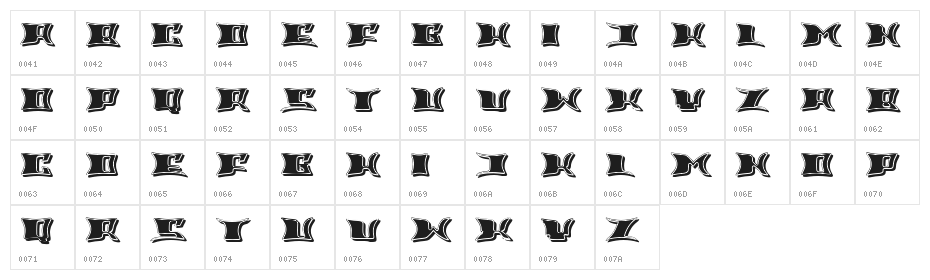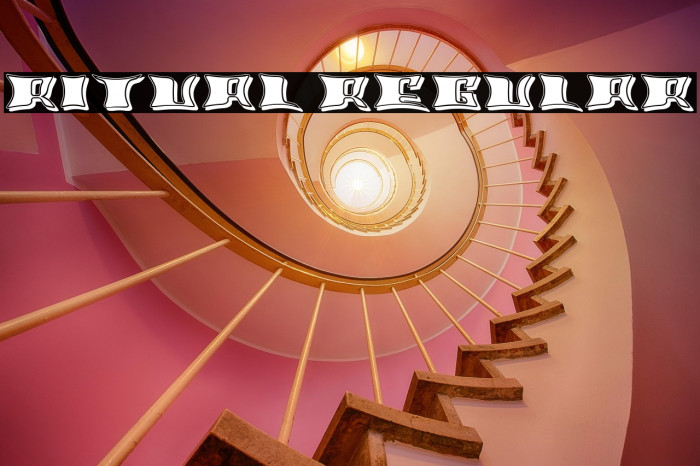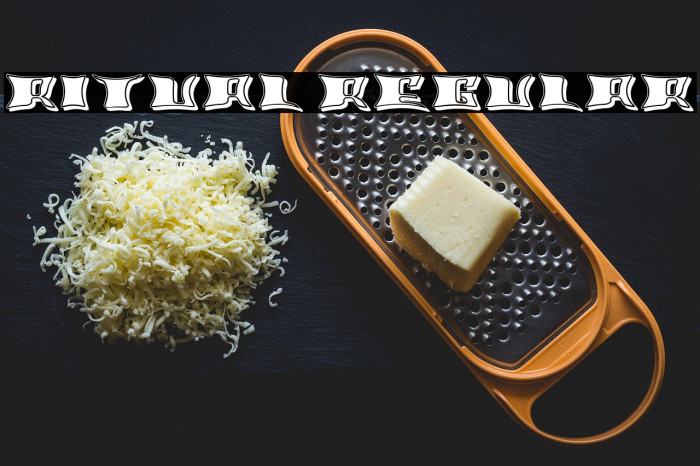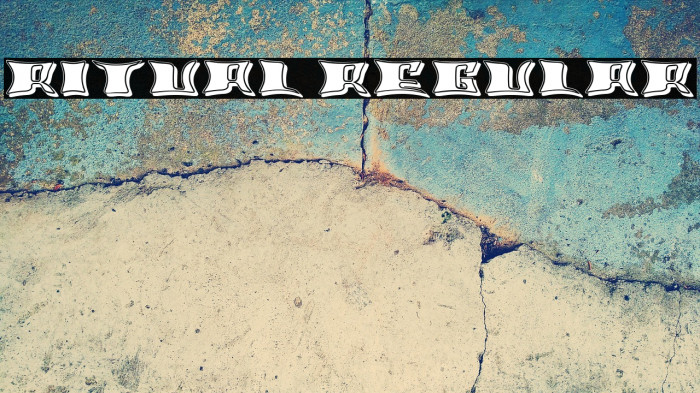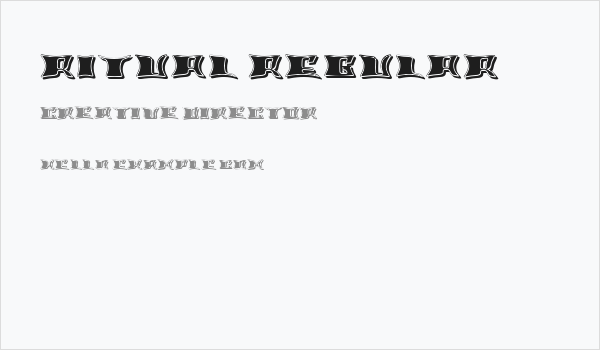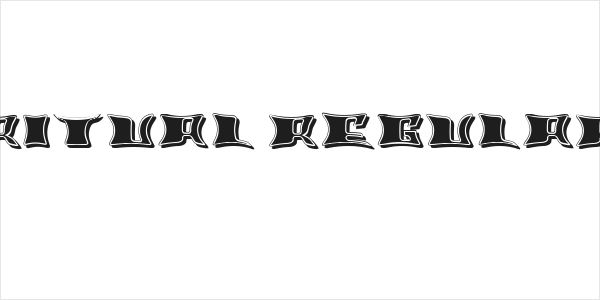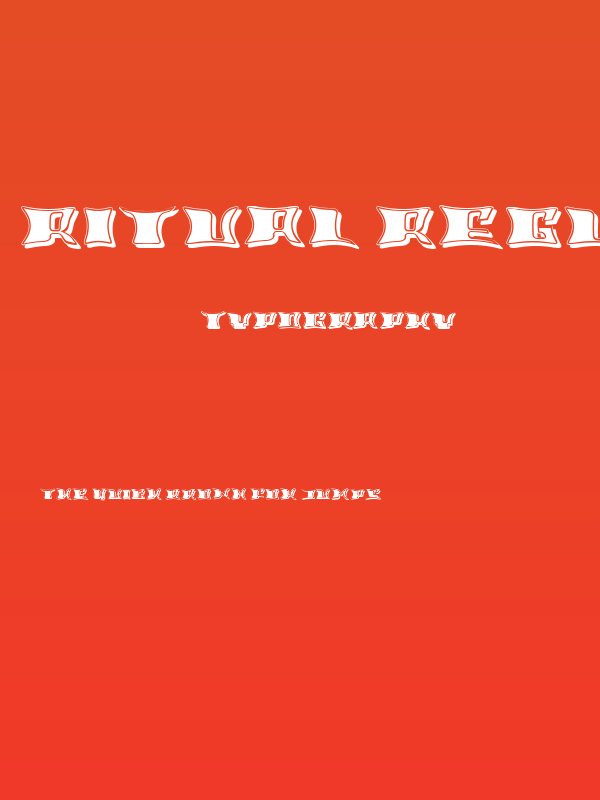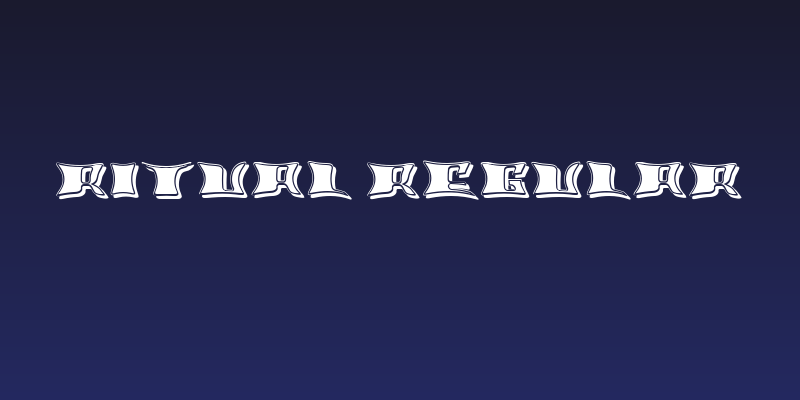
Ritual Regular Font
This font features a bold and striking design with a distinct Gothic influence. The characters are heavily stylized, with sharp edges and intricate details that give it a dramatic and ornamental appearance. The uppercase letters are particularly elaborate, showcasing a unique blend of traditional and modern elements. The font's boldness and decorative style make it stand out, while the consistent stroke width maintains readability. The overall aesthetic is both vintage and contemporary, making it versatile for various design applications.
| Overall Style | Vintage, Decorative |
| Use Case | Logos, Headlines, Posters |
| Proposed Projects | Ideal for use in branding, poster design, album covers, and any project requiring a dramatic and eye-catching typeface. |